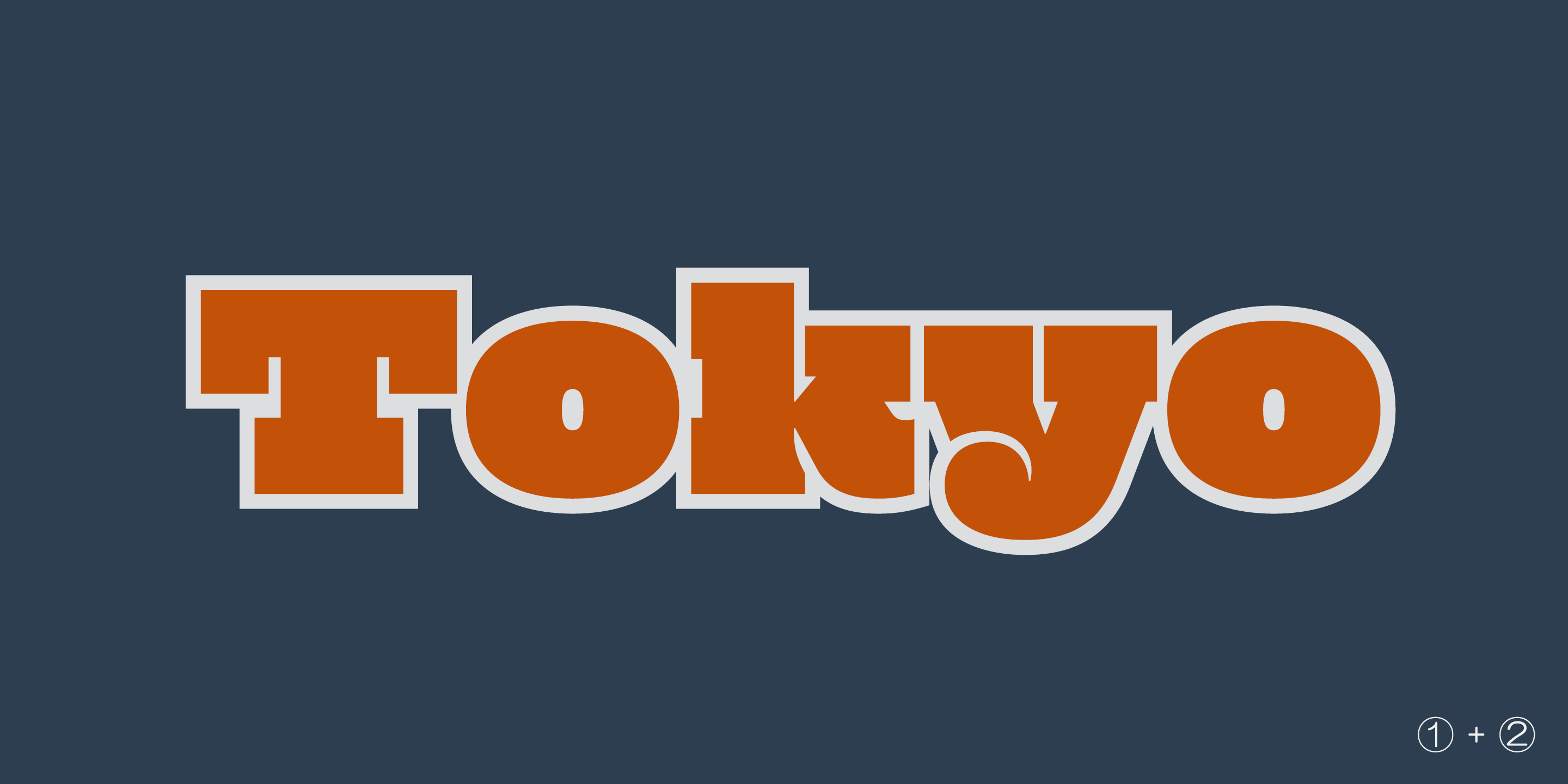
Mighty Slab Font
Mighty Slab Font - Mighty slab is a very heavy slab=serif font for titling, captions and logo. Opentype format (.otf) with 531 glyphs!. Web mighty slab is a very heavy slab=serif font for titling, captions and logo. Use the controls below to customize your text string and its. Opentype format (.otf) with 531 glyphs!. Web explore mighty slab designed by ryoichi tsunekawa at adobe fonts. A slab serif typeface with 4 styles, available from.
Opentype format (.otf) with 531 glyphs!. Mighty slab is a very heavy slab=serif font for titling, captions and logo. Use the controls below to customize your text string and its. Web explore mighty slab designed by ryoichi tsunekawa at adobe fonts. Web mighty slab is a very heavy slab=serif font for titling, captions and logo. A slab serif typeface with 4 styles, available from.
Web explore mighty slab designed by ryoichi tsunekawa at adobe fonts. A slab serif typeface with 4 styles, available from. Web mighty slab is a very heavy slab=serif font for titling, captions and logo. Opentype format (.otf) with 531 glyphs!. Mighty slab is a very heavy slab=serif font for titling, captions and logo. Use the controls below to customize your text string and its. Opentype format (.otf) with 531 glyphs!.
Mighty Slab Font Family by FlatIt Font Bros
Opentype format (.otf) with 531 glyphs!. Mighty slab is a very heavy slab=serif font for titling, captions and logo. A slab serif typeface with 4 styles, available from. Use the controls below to customize your text string and its.
Mighty Slab Font Fontspring
Mighty slab is a very heavy slab=serif font for titling, captions and logo. Web explore mighty slab designed by ryoichi tsunekawa at adobe fonts. Opentype format (.otf) with 531 glyphs!. Web mighty slab is a very heavy slab=serif font for titling, captions and logo. A slab serif typeface with 4 styles, available from.
Mighty Slab Slab serif fonts, Slab serif, Serif logo
A slab serif typeface with 4 styles, available from. Web mighty slab is a very heavy slab=serif font for titling, captions and logo. Opentype format (.otf) with 531 glyphs!. Use the controls below to customize your text string and its. Web explore mighty slab designed by ryoichi tsunekawa at adobe fonts.
Mighty Slab Font Family by FlatIt Font Bros
Opentype format (.otf) with 531 glyphs!. Web explore mighty slab designed by ryoichi tsunekawa at adobe fonts. Opentype format (.otf) with 531 glyphs!. A slab serif typeface with 4 styles, available from. Use the controls below to customize your text string and its.
Mighty Slab Font Fontspring
A slab serif typeface with 4 styles, available from. Mighty slab is a very heavy slab=serif font for titling, captions and logo. Web mighty slab is a very heavy slab=serif font for titling, captions and logo. Opentype format (.otf) with 531 glyphs!. Use the controls below to customize your text string and its.
Mighty Slab Font Family by FlatIt Font Bros
Web explore mighty slab designed by ryoichi tsunekawa at adobe fonts. A slab serif typeface with 4 styles, available from. Web mighty slab is a very heavy slab=serif font for titling, captions and logo. Opentype format (.otf) with 531 glyphs!. Mighty slab is a very heavy slab=serif font for titling, captions and logo.
Mighty Slab™ One
Opentype format (.otf) with 531 glyphs!. A slab serif typeface with 4 styles, available from. Use the controls below to customize your text string and its. Web mighty slab is a very heavy slab=serif font for titling, captions and logo. Opentype format (.otf) with 531 glyphs!.
Mighty Slab Font YouWorkForThem
Use the controls below to customize your text string and its. Opentype format (.otf) with 531 glyphs!. Mighty slab is a very heavy slab=serif font for titling, captions and logo. Web mighty slab is a very heavy slab=serif font for titling, captions and logo.
Mighty Slab Font Family Free Download
Mighty slab is a very heavy slab=serif font for titling, captions and logo. Web explore mighty slab designed by ryoichi tsunekawa at adobe fonts. A slab serif typeface with 4 styles, available from. Use the controls below to customize your text string and its. Opentype format (.otf) with 531 glyphs!.
Mighty Slab Font Family by FlatIt Font Bros
Web explore mighty slab designed by ryoichi tsunekawa at adobe fonts. Opentype format (.otf) with 531 glyphs!. Web mighty slab is a very heavy slab=serif font for titling, captions and logo. Opentype format (.otf) with 531 glyphs!. Use the controls below to customize your text string and its.
Web mighty slab is a very heavy slab=serif font for titling, captions and logo. Web explore mighty slab designed by ryoichi tsunekawa at adobe fonts. Use the controls below to customize your text string and its. A slab serif typeface with 4 styles, available from.
Mighty slab is a very heavy slab=serif font for titling, captions and logo.